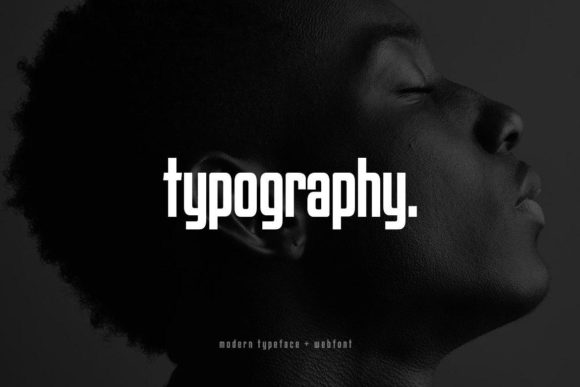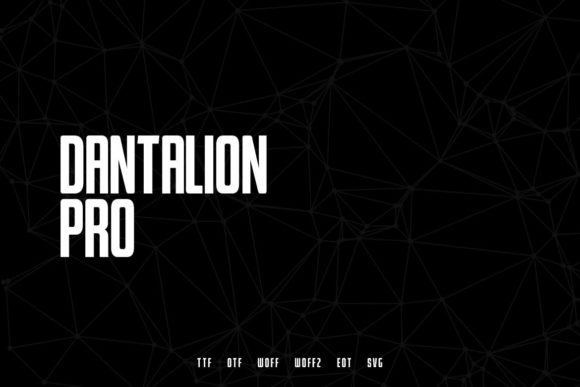
Dantalion Font: The Simple yet Unique Sans Serif for Your Designs
In the world of typography, finding the perfect font for your design project can be a daunting task. You want something that is simple, yet stands out from the crowd. Something that is versatile and can be used across a variety of designs. Look no further than the Dantalion Font, a minimal sans serif font that is sure to elevate your designs.
What is Dantalion Font?
Dantalion Font is a simple and minimal sans serif font that has been designed to be both natural and unique. Its clean lines and subtle curves make it incredibly fitting for a large pool of designs, from modern digital projects to traditional print materials. The font’s simplicity is its greatest strength, allowing it to blend seamlessly into any design while still making a statement.
Characteristics of Dantalion Font
So, what makes Dantalion Font so special? Here are just a few of its key characteristics:
- Simple and Minimal: Dantalion Font is a sans serif font that is stripped back to the basics. It has a clean and minimalist aesthetic that makes it perfect for designers who want to keep their designs simple and uncluttered.
- Natural and Unique: Despite its simplicity, Dantalion Font has a natural and unique style that sets it apart from other sans serif fonts. Its subtle curves and rounded edges give it a friendly and approachable feel.
- Versatile: Dantalion Font is incredibly versatile and can be used across a wide range of designs. Whether you’re working on a modern digital project or a traditional print material, this font is sure to fit the bill.
Uses for Dantalion Font
So, what can you use Dantalion Font for? The possibilities are endless! Here are just a few ideas to get you started:
- Digital Projects: Dantalion Font is perfect for digital projects such as website designs, social media graphics, and email newsletters. Its clean lines and simple aesthetic make it easy to read on a variety of devices.
- Print Materials: Dantalion Font is also great for traditional print materials such as brochures, flyers, and business cards. Its unique style and natural feel make it a great choice for designers who want to stand out from the crowd.
- Crafting and DIY Projects: Dantalion Font is a great choice for crafters and DIY enthusiasts who want to add a personal touch to their projects. Use it to create custom signs, labels, and other decorative items.
Why Choose Dantalion Font?
So, why should you choose Dantalion Font for your next design project? Here are just a few reasons:
- Easy to Read: Dantalion Font is incredibly easy to read, even at small sizes. This makes it perfect for designers who want to create clear and concise designs.
- Highly Versatile: Dantalion Font can be used across a wide range of designs, from modern digital projects to traditional print materials.
- Unique Style: Dantalion Font has a unique style that sets it apart from other sans serif fonts. Its natural and subtle curves make it a great choice for designers who want to add a personal touch to their designs.
In conclusion, Dantalion Font is a simple yet unique sans serif font that is perfect for designers and crafters who want to elevate their designs. Its natural and subtle curves make it incredibly fitting for a large pool of designs, from modern digital projects to traditional print materials. With its ease of use, versatility, and unique style, Dantalion Font is a great choice for anyone looking to add a personal touch to their designs.